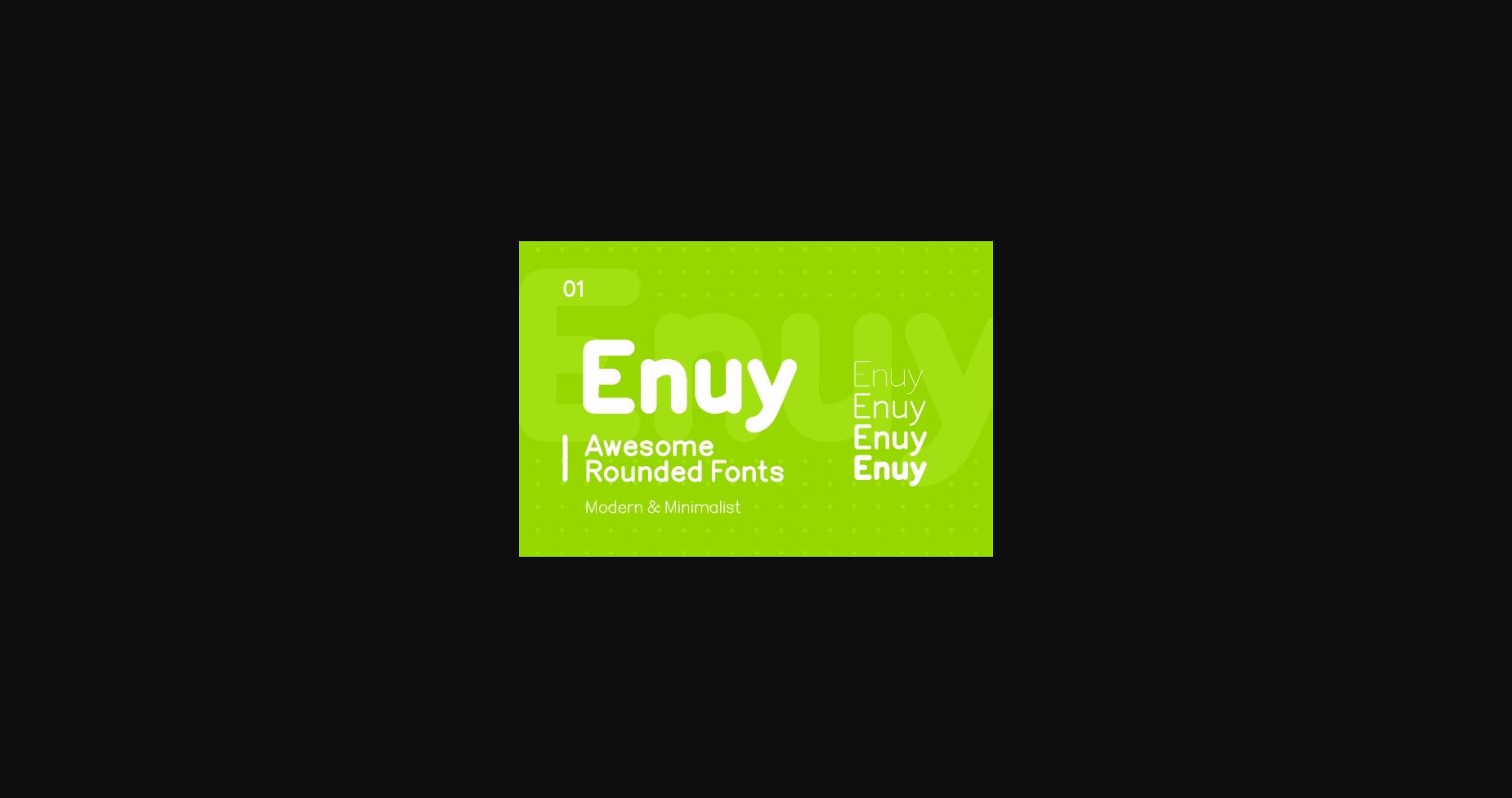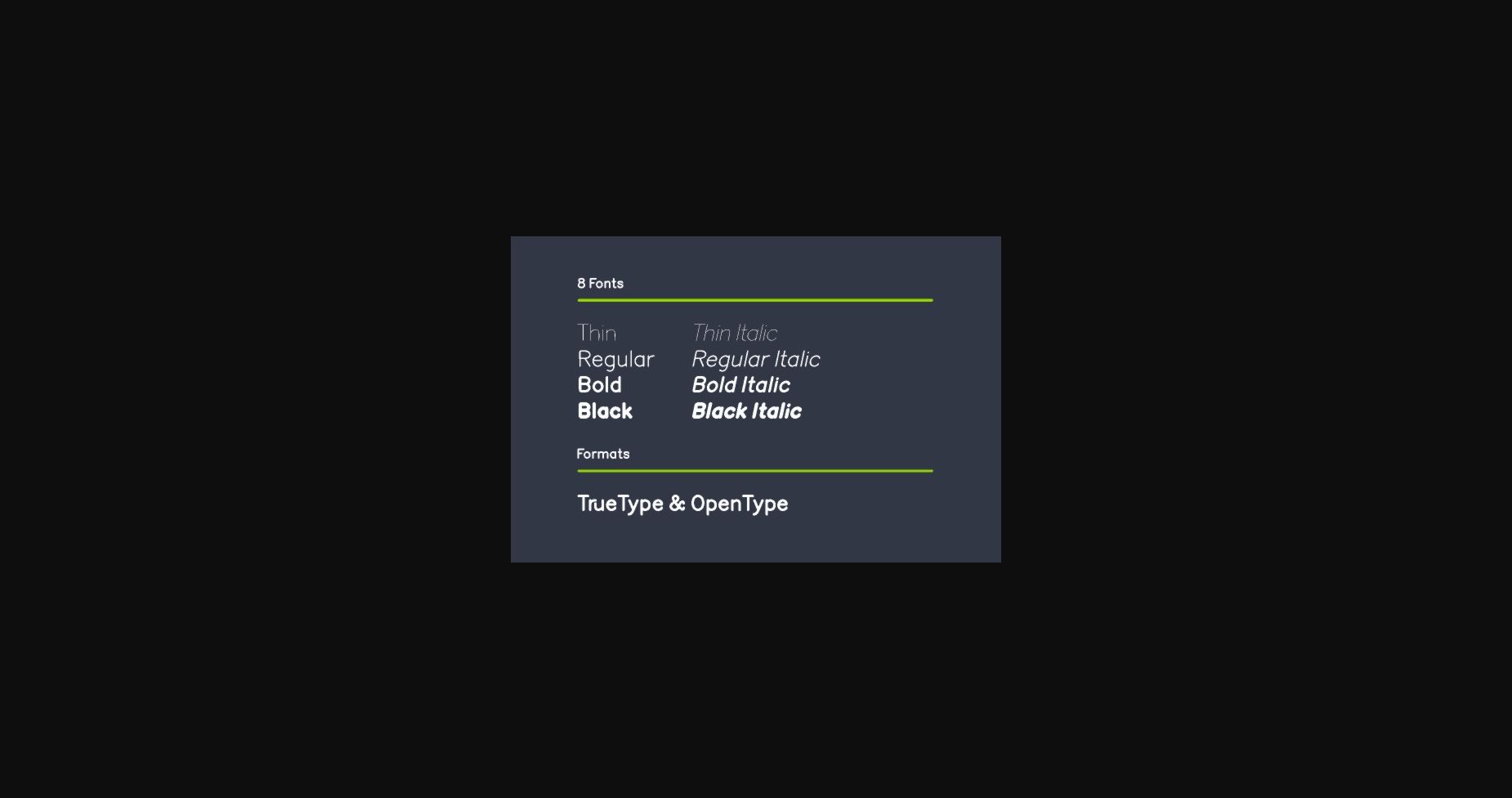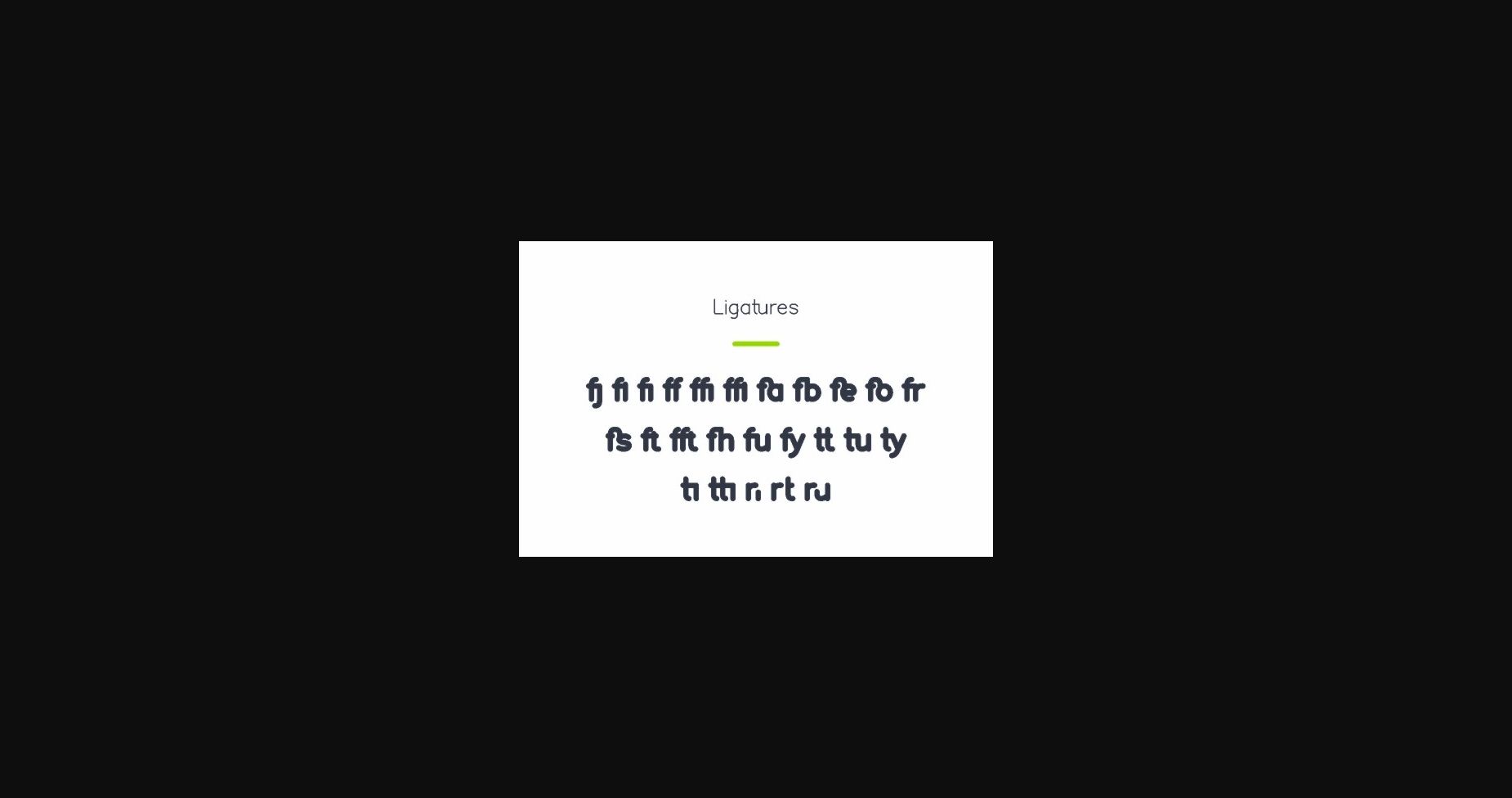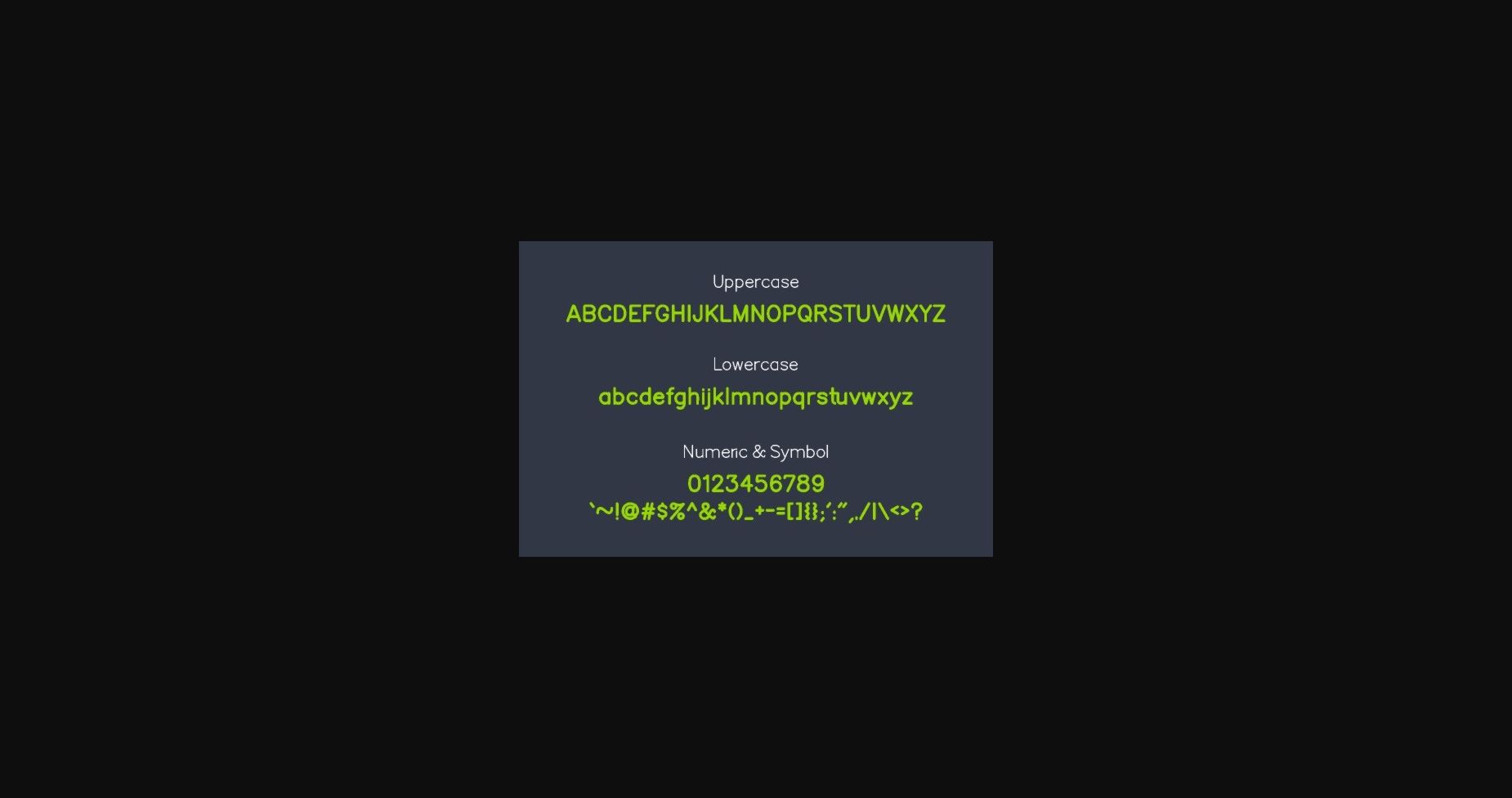
Enuy is a sleek and minimalistic sans serif font. It is perfectly suitable for modern projects that need clean and neat characters in a stylish, friendly way!